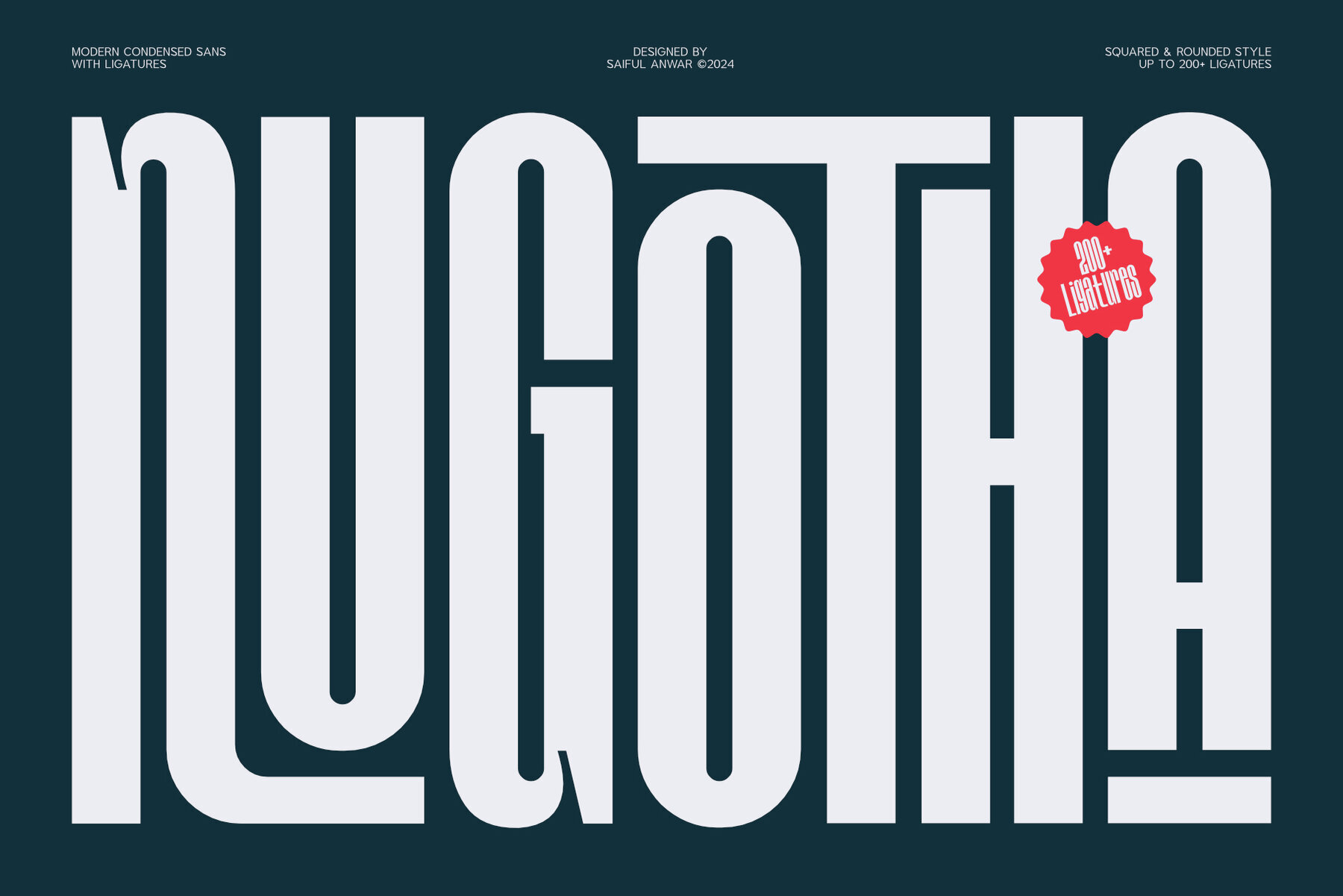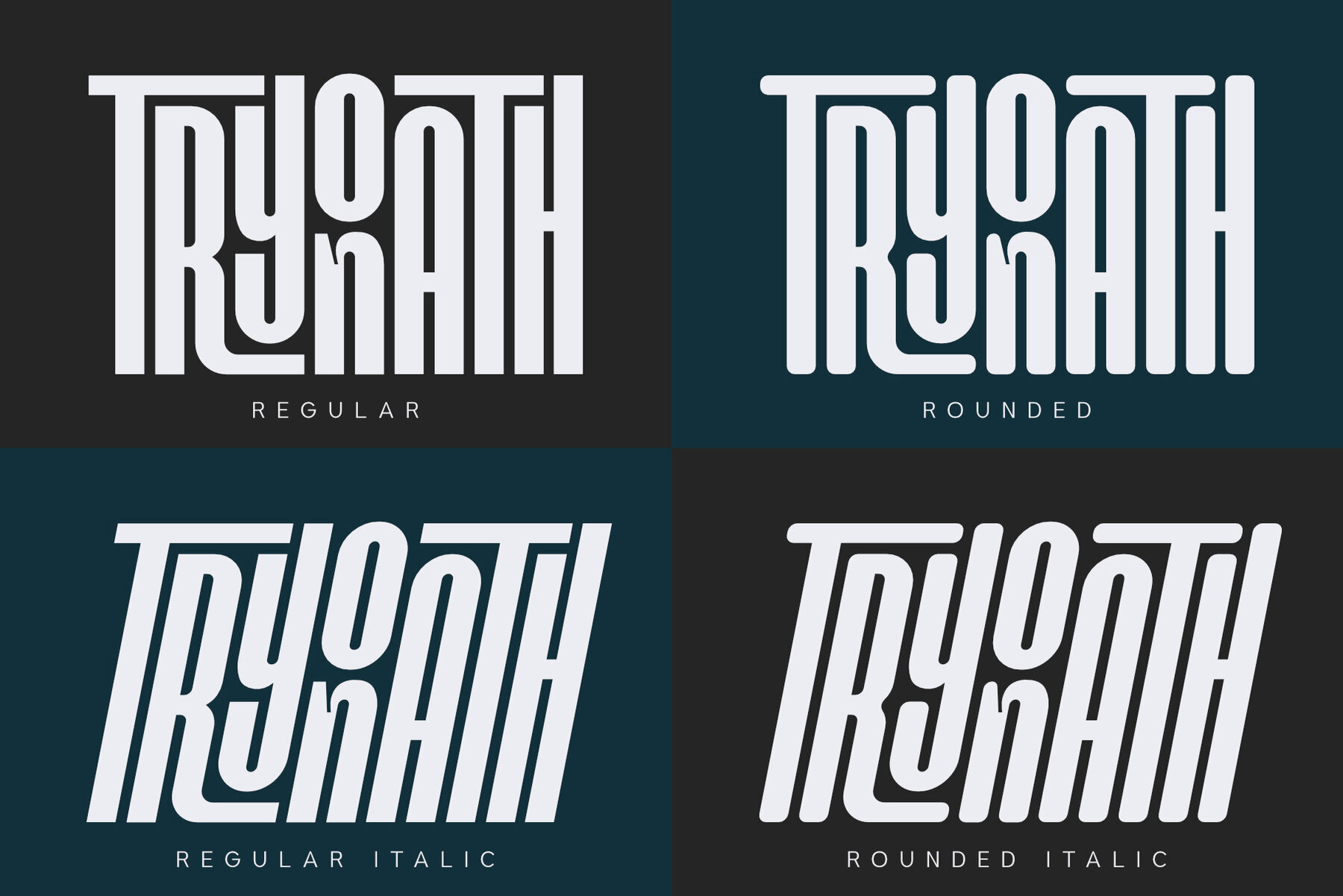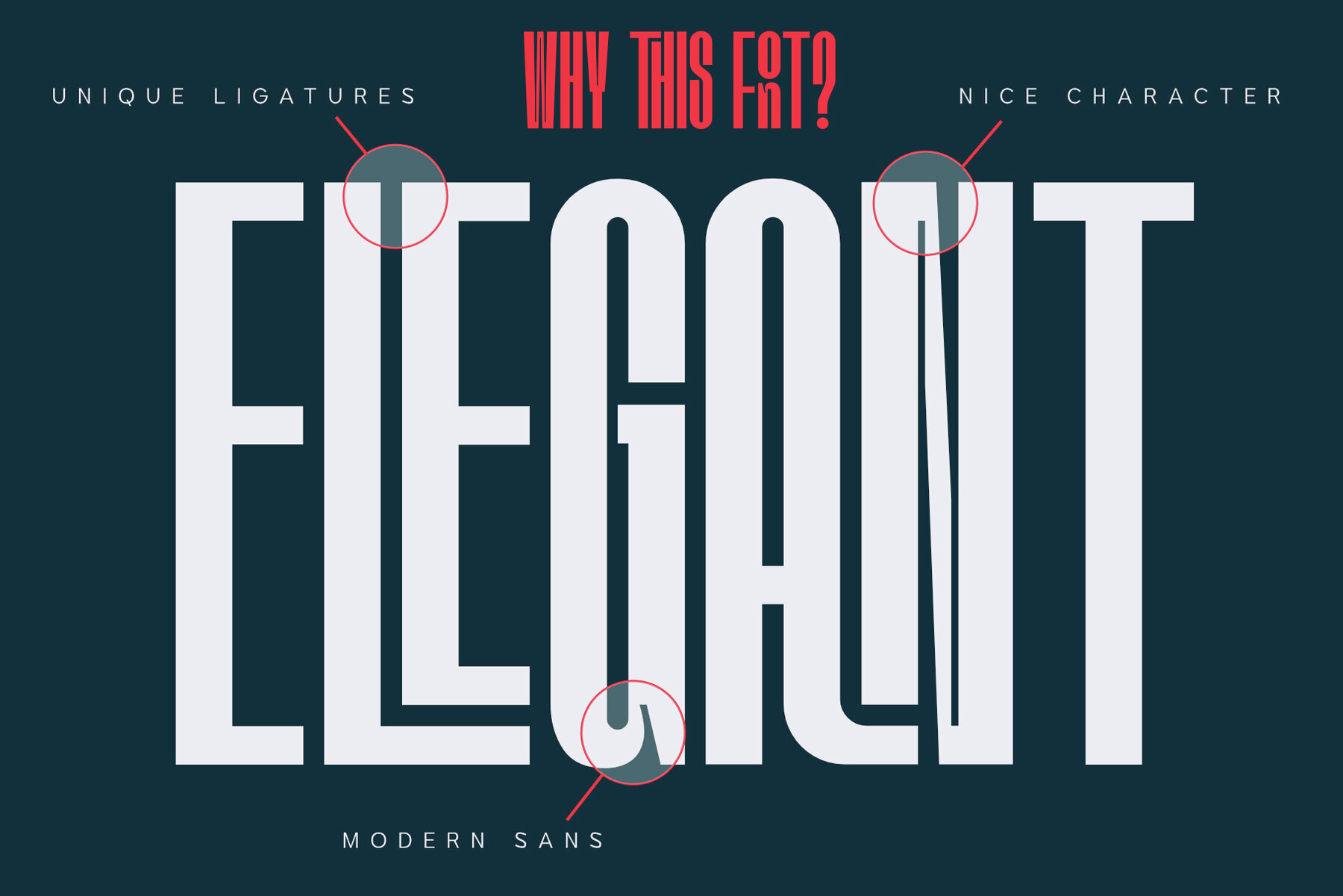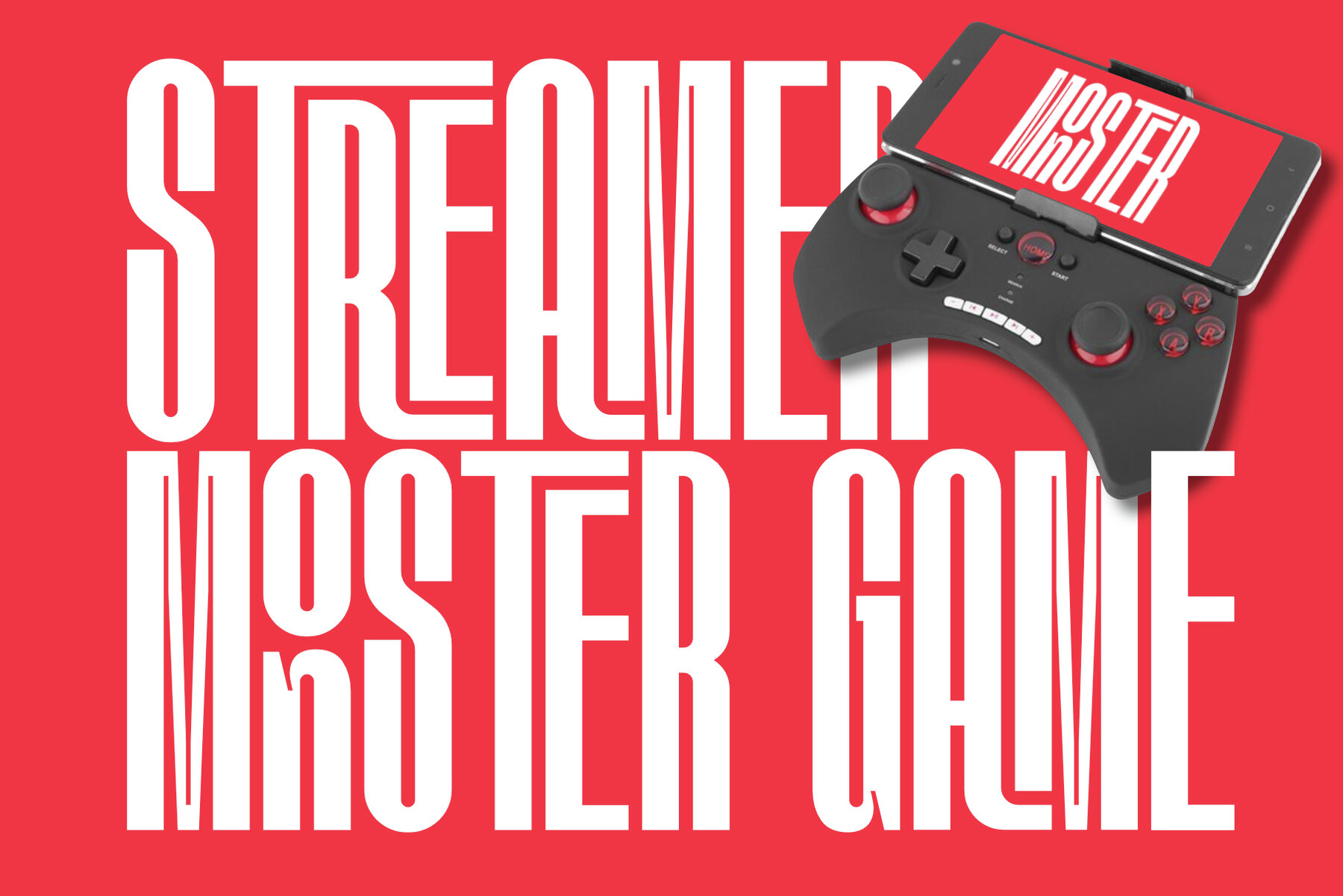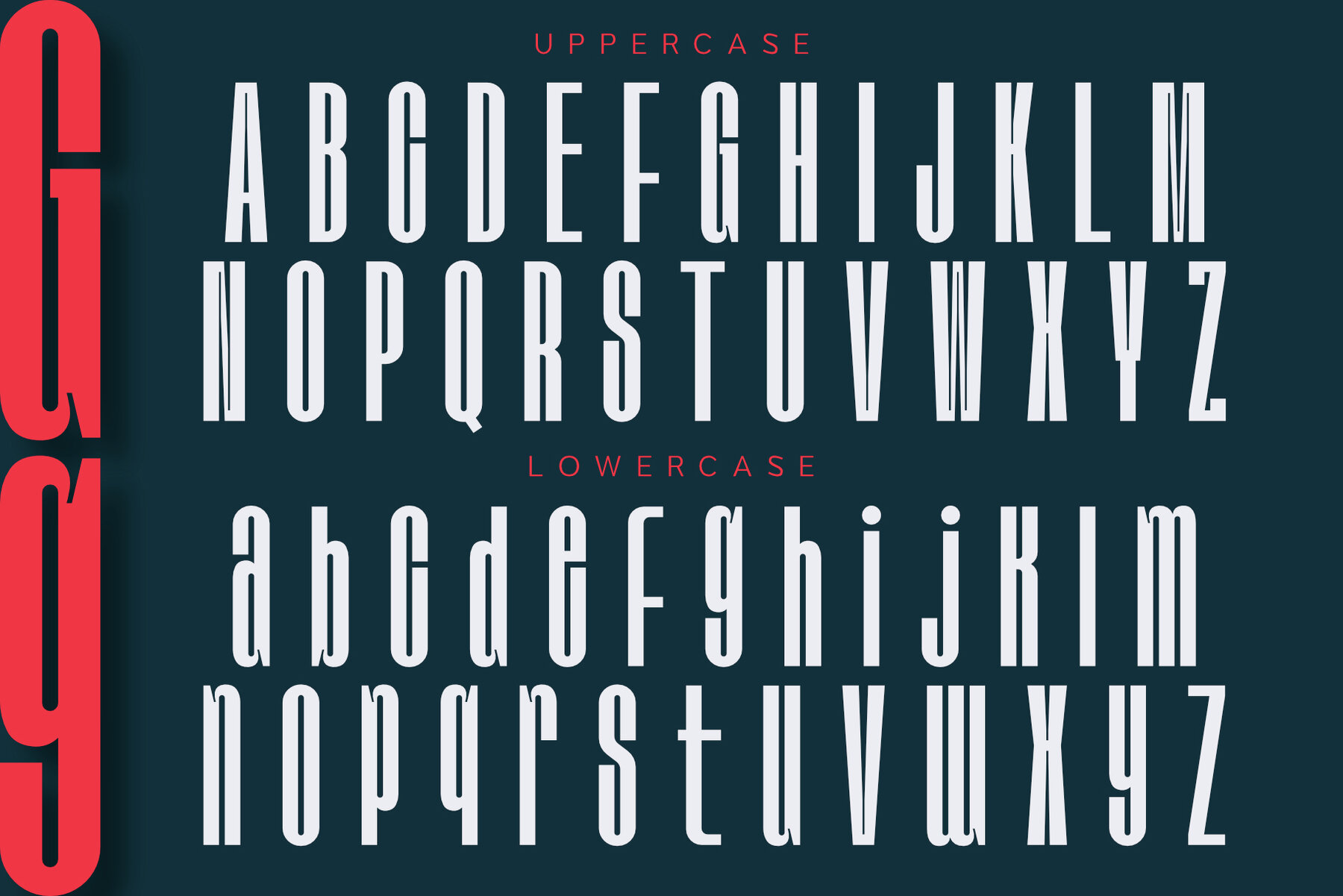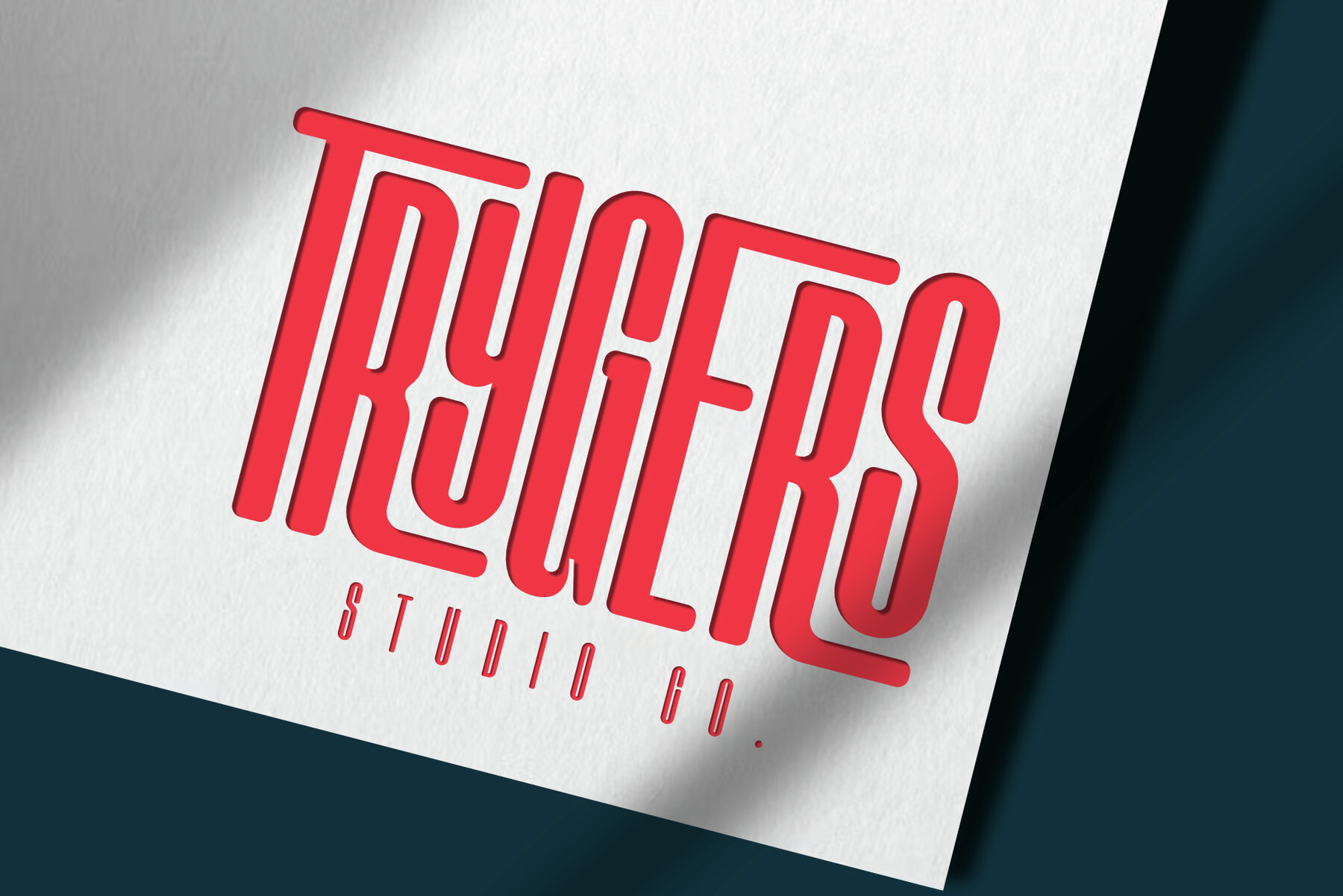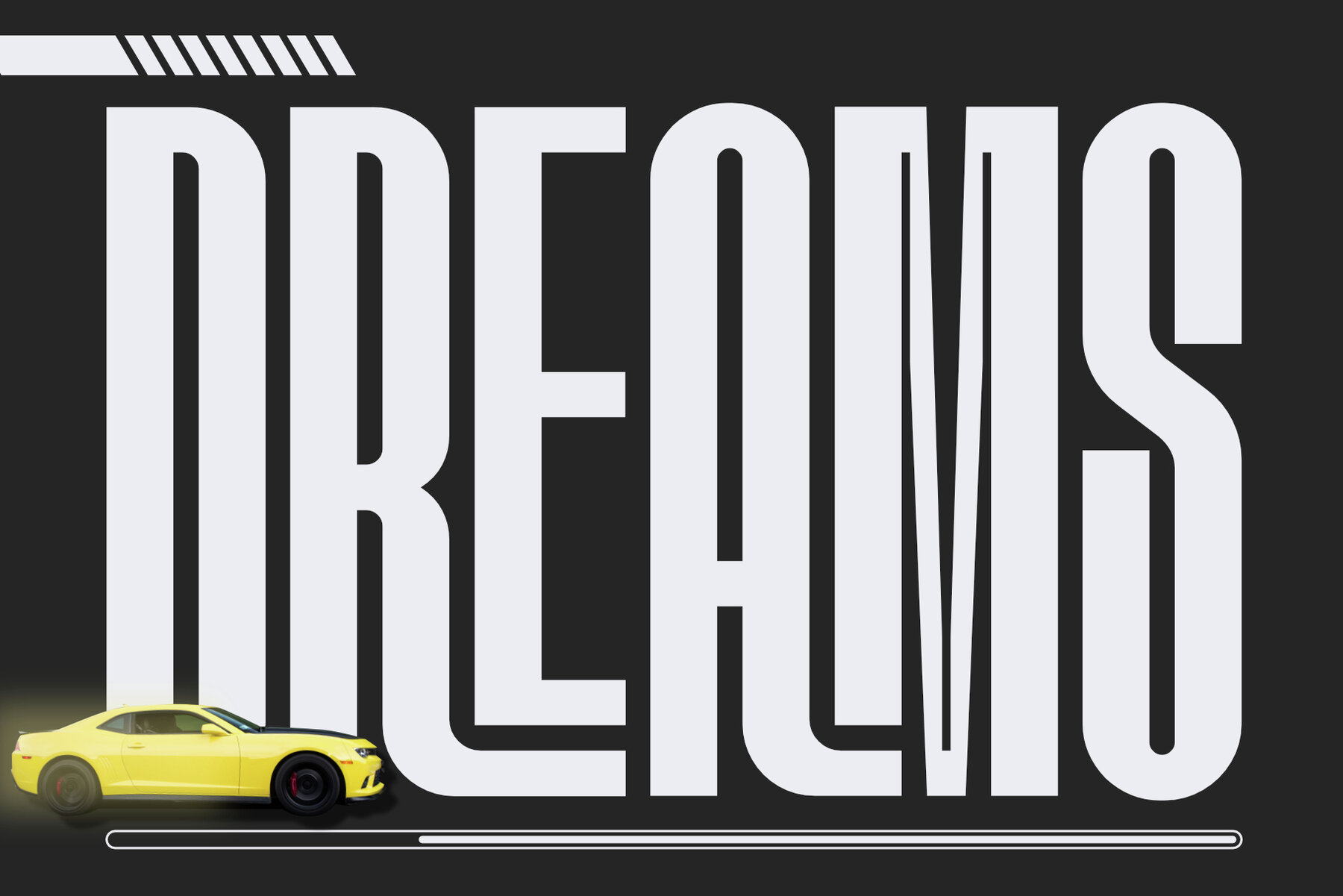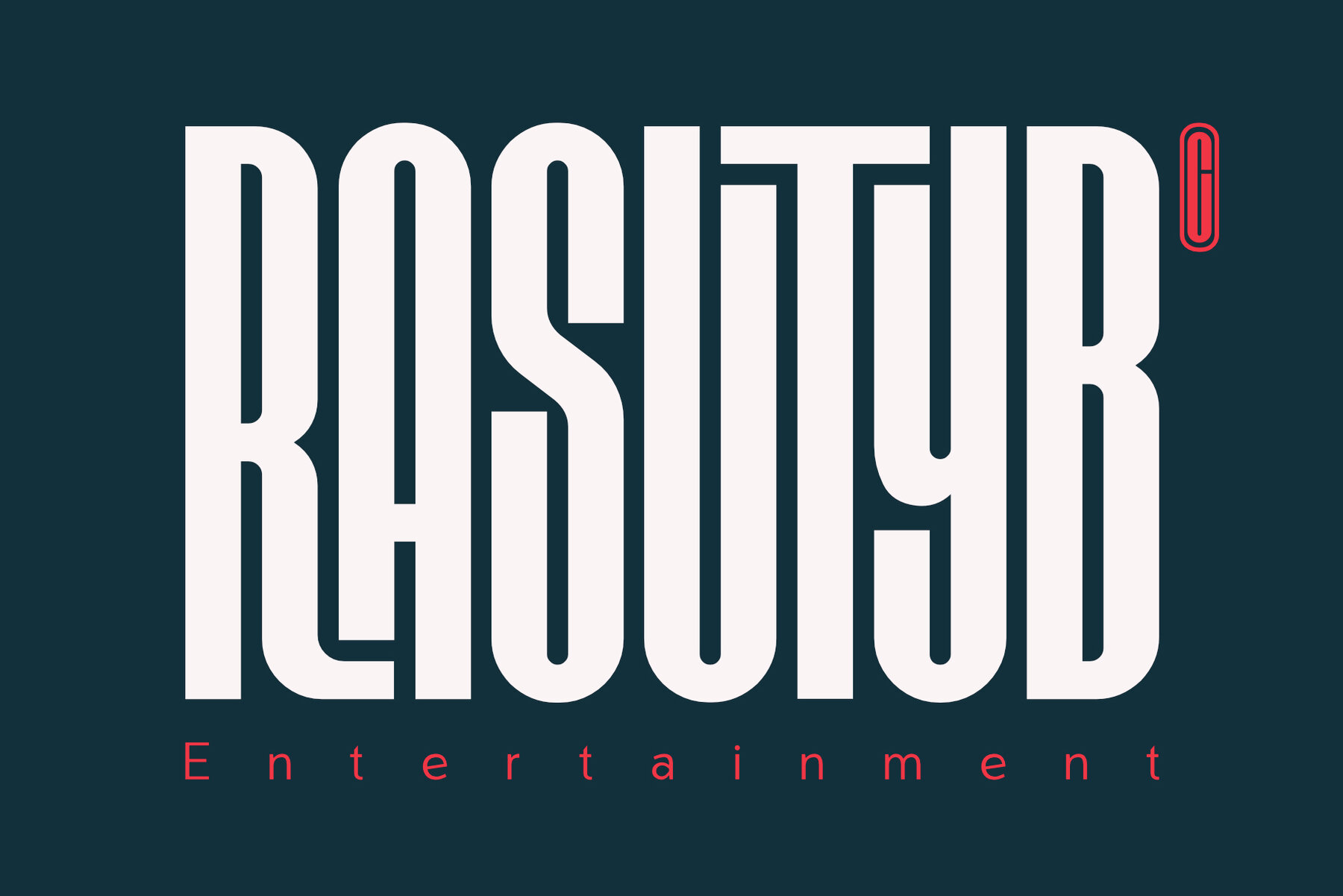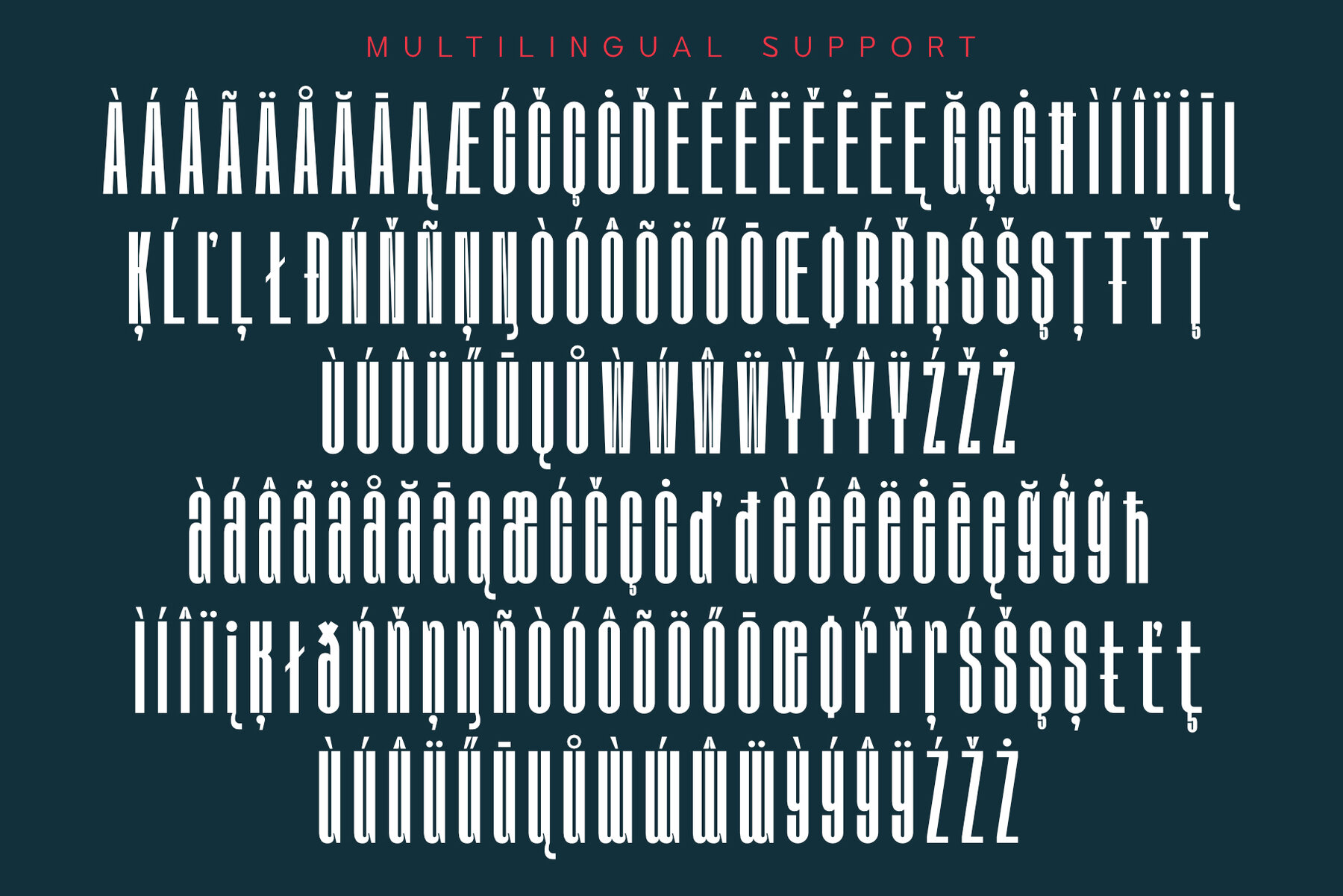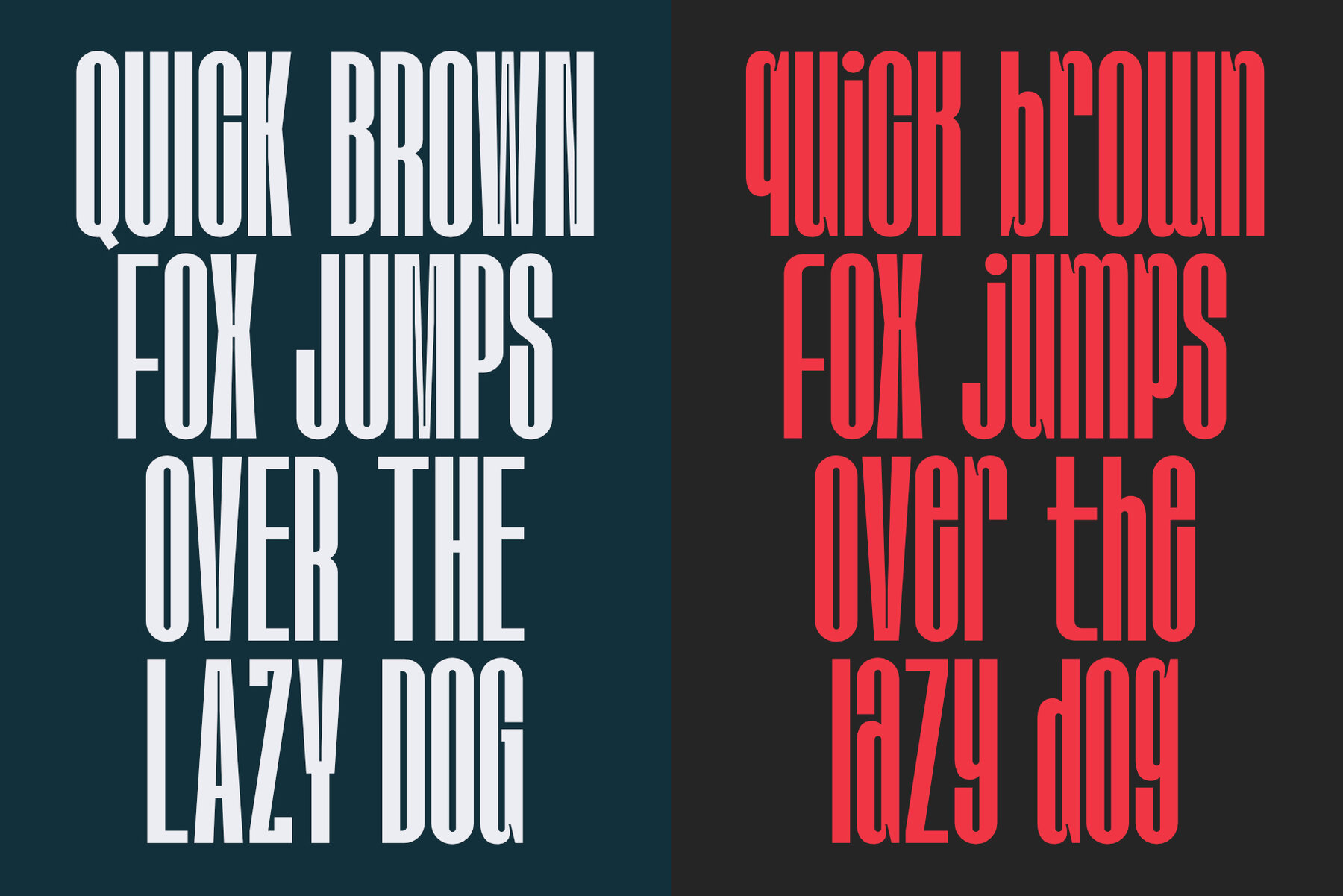
Nugotha Font
Introducing Nugotha Modern Condensed Sans With 200+ Ligatures Nugotha is a cutting-edge condensed sans-serif font that elevates typographic standards. With a sleek and modern aesthetic, Nugotha balances elegance and functionality, enriched by a vast array of meticulously designed ligatures. Crafted to maximize space efficiency while maintaining legibility, Nugotha’s condensed style is ideal for headlines, logos, packaging, and web design. This compact form ensures a visually impactful presence that grabs attention. The defining feature of Nugotha is its extensive collection of ligatures, which enable seamless character connections and add a touch of fluidity and artistry to your typography. These ligatures imbue your designs with sophistication, elevating them to new levels of visual appeal. Nugotha is highly versatile, fitting a wide range of design needs from editorial layouts and branding materials to advertising campaigns and digital interfaces. Its modern condensed sans style exudes professionalism and contemporary charm, making it perfect for projects that require a refined, sleek visual identity. Whether you're aiming for a minimalist, high-tech, or avant-garde aesthetic, Nugotha provides the perfect canvas for your creative vision. Its condensed form and rich selection of ligatures empower you to create distinctive and memorable designs that stand out. Nugotha Features: